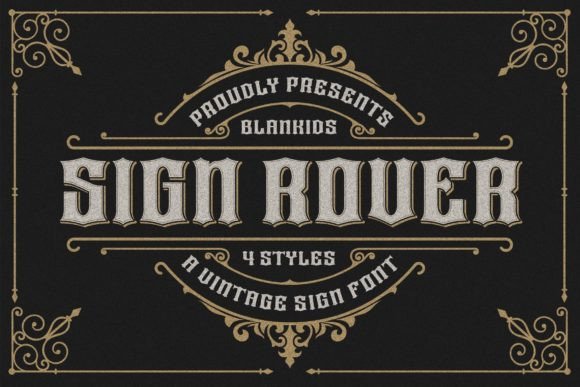
Looking for a font that is both traditional and modern? Look no further than Sign Rover, the newest creation from Blankids Studio. This blackletter font has everything you need to create a stunning design that will grab the attention of anyone who sees it.
With a sleek and modern twist on classic calligraphy, Sign Rover is the perfect font for anyone looking to add a touch of sophistication and elegance to their designs. Whether you're creating a logo, a headline, or a title, this font is sure to make a statement.
Sign Rover's bold and stylish appearance is ideal for those who want to create a lasting impression. Its modern design combined with traditional elements make it perfect for creating wanted posters, adding an edgy and professional touch to any project.
With its unique features and captivating look, Sign Rover is the ultimate choice for those seeking a blackletter font that is modern, edgy, and versatile. Don't settle for less when it comes to your designs - choose Sign Rover and make your project stand out from the rest.